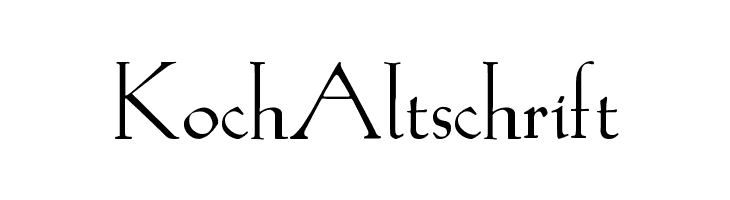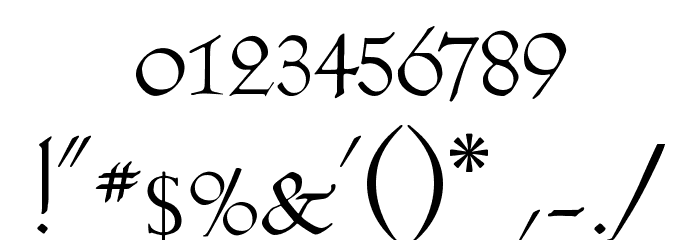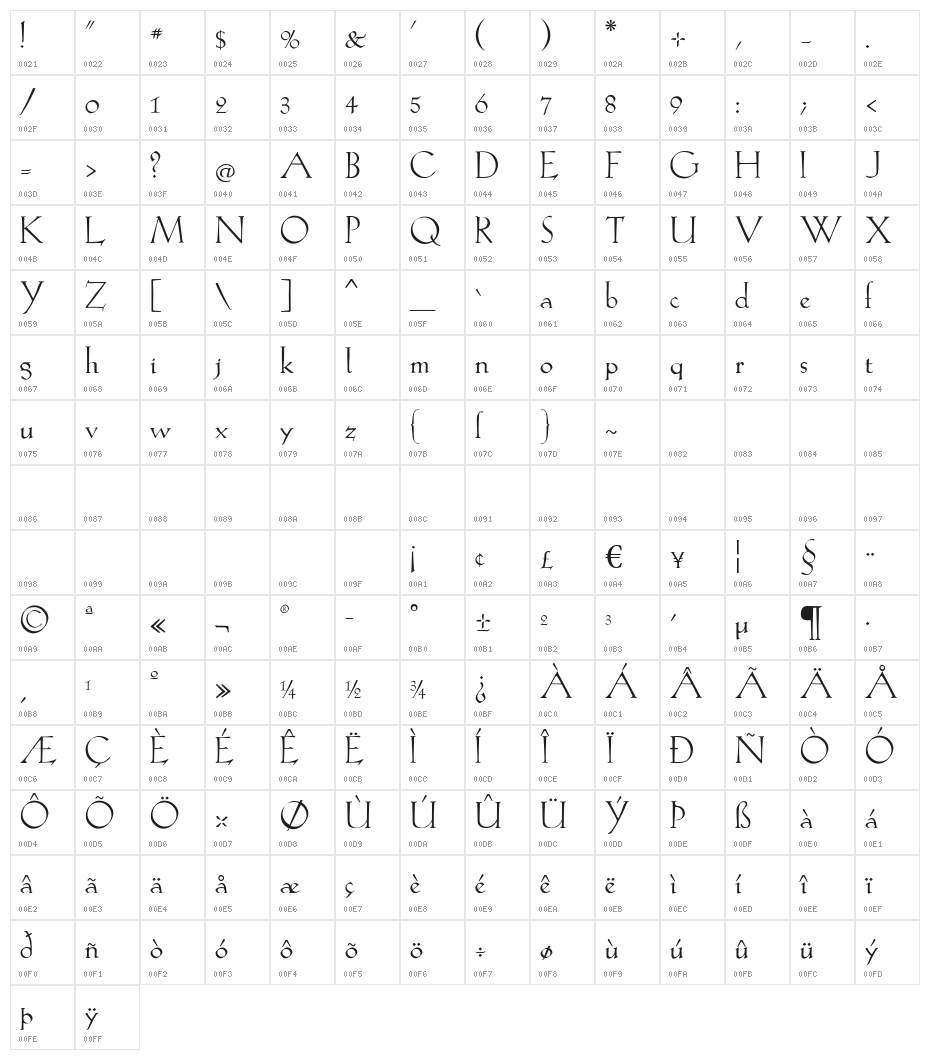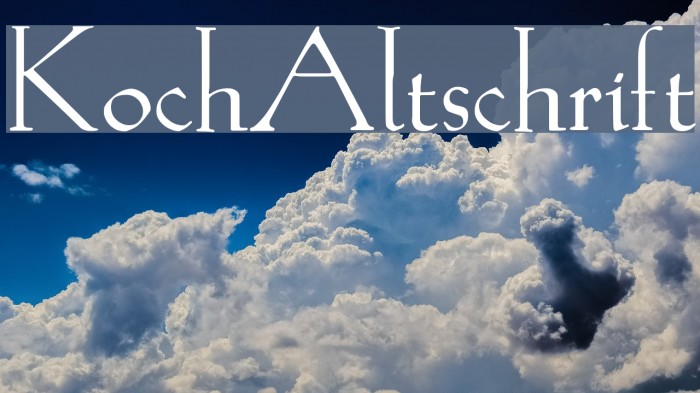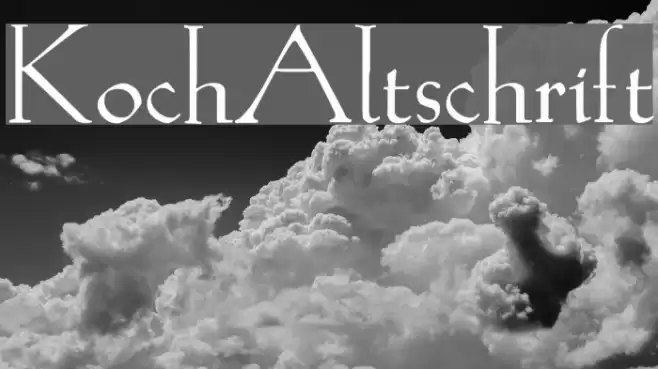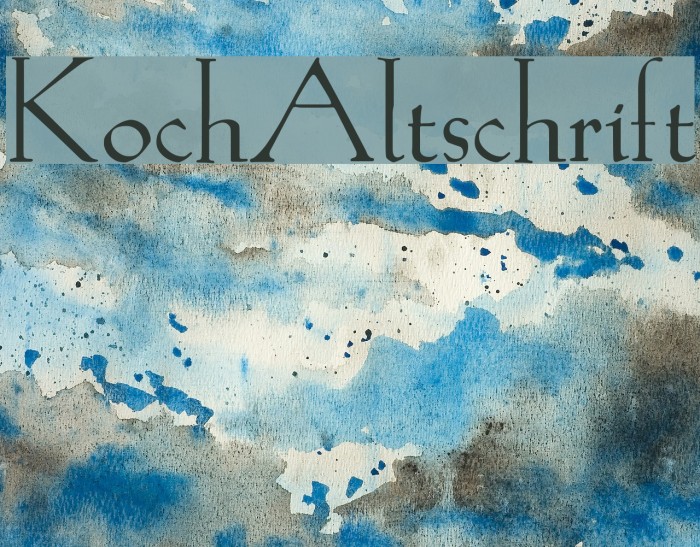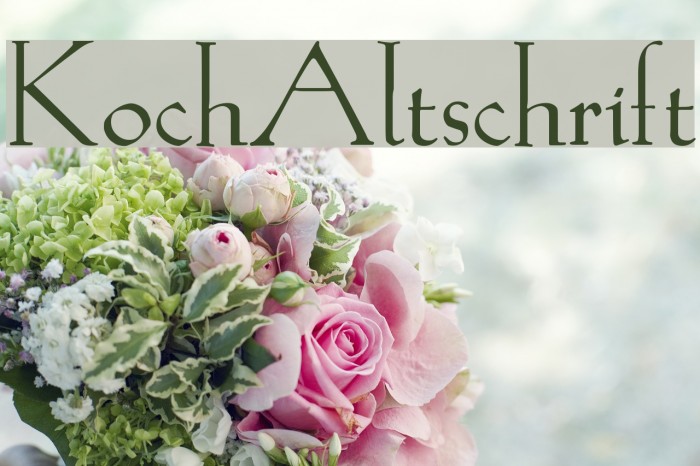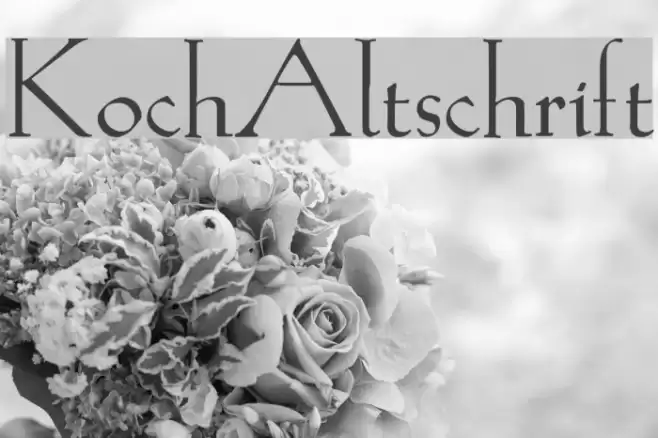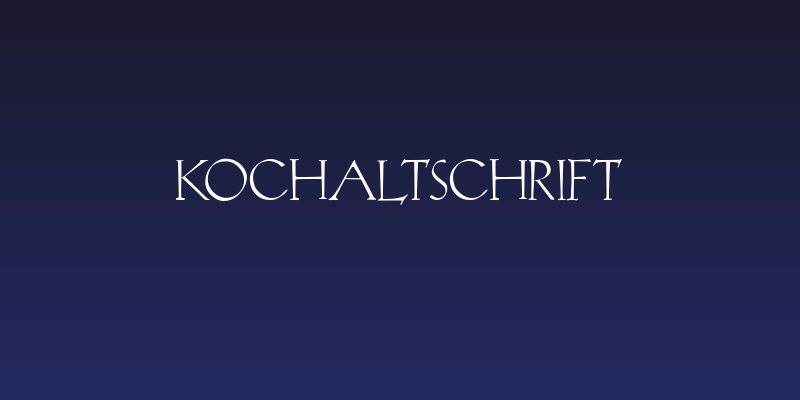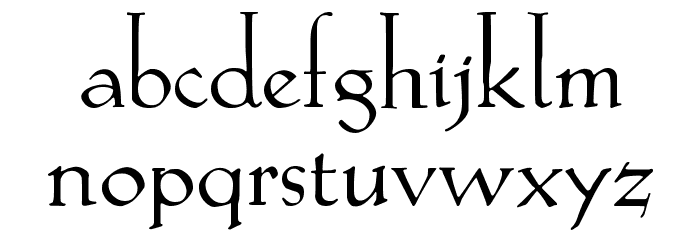
KochAltschrift Font
KochAltschrift Description
This font exhibits a classic and elegant style with a touch of historical influence. The uppercase letters are characterized by sharp, angular serifs and a slightly condensed form, giving them a formal and sophisticated appearance. The lowercase letters maintain a consistent style, with smooth curves and a balanced weight that complements the uppercase. The numerals are distinct and easily readable, featuring the same sharp serifs and clean lines. Special characters are designed with the same attention to detail, ensuring a cohesive look across all glyphs. This font is suitable for projects that require a touch of elegance and tradition.
Overall StyleClassic
Use CaseHeadlines, Body text, Logos
Proposed ProjectsIdeal for formal invitations, historical documents, book covers, and branding that requires a classic touch.